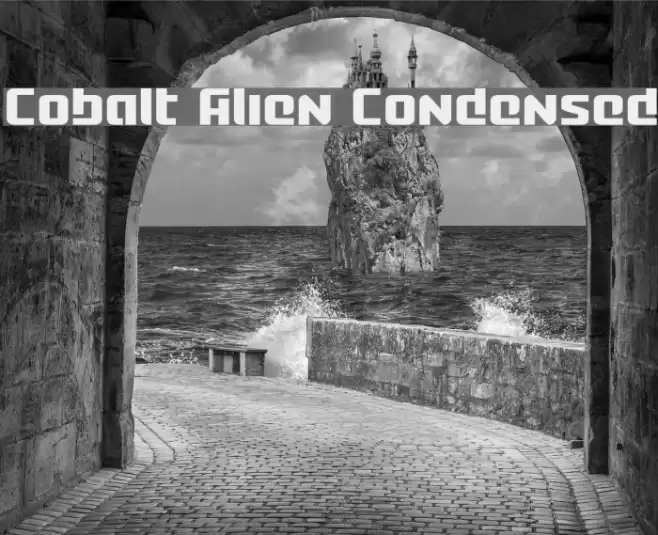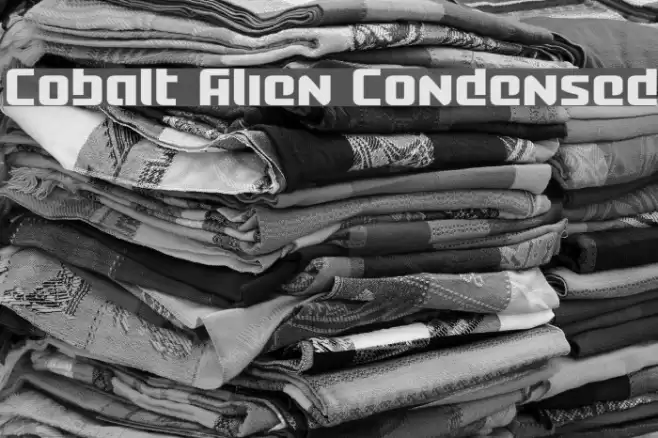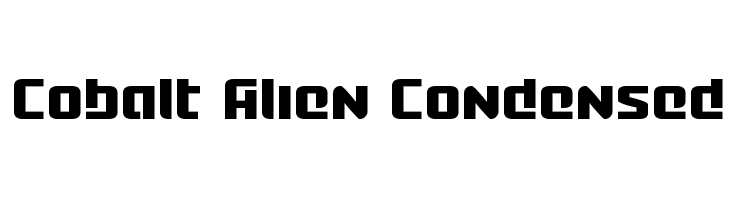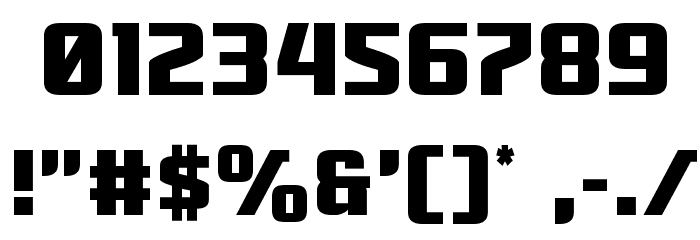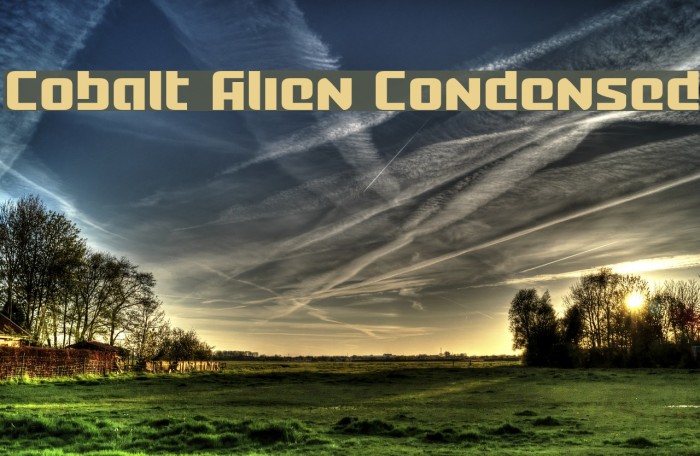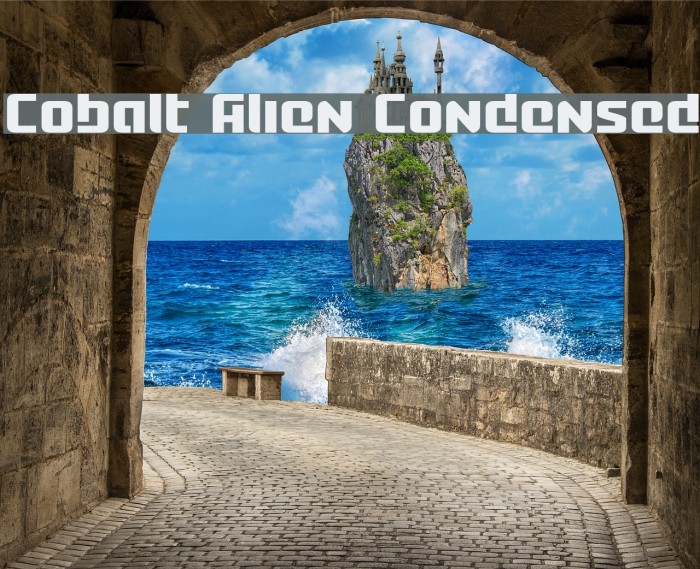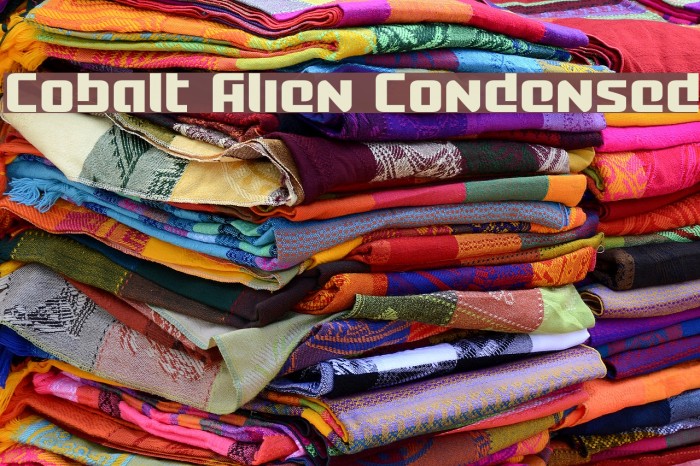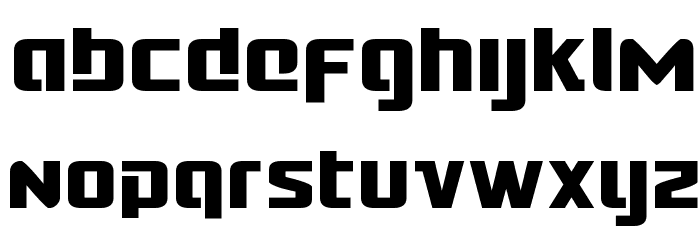
Cobalt Alien Condensed Font
Cobalt Alien Condensed Description
This font features a futuristic and geometric design with a condensed structure, giving it a sleek and modern appearance. The characters are bold and angular, with sharp edges and a uniform stroke width that conveys a sense of strength and precision. The uppercase and lowercase letters maintain a consistent style, while the numerals and special characters complement the overall aesthetic. Its unique design makes it suitable for projects that require a modern and edgy look.
A futuristic, geometric, and condensed font with bold, angular characters from Uncategorized fonts.